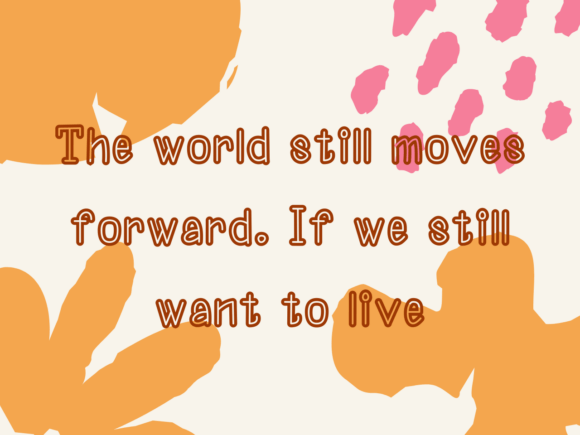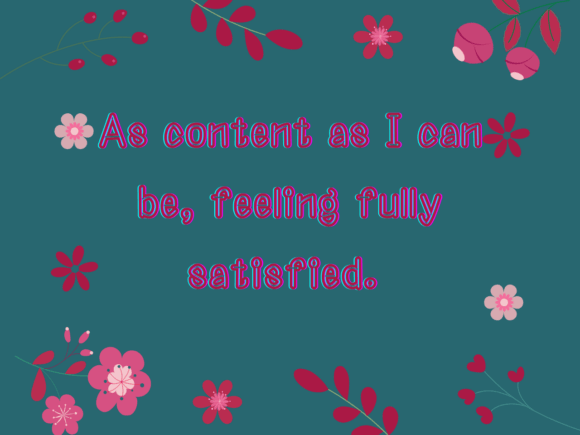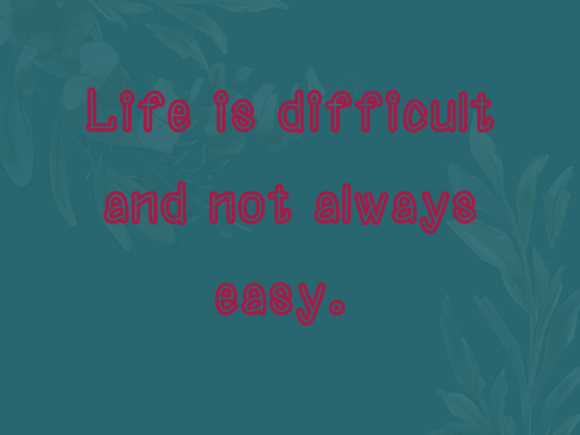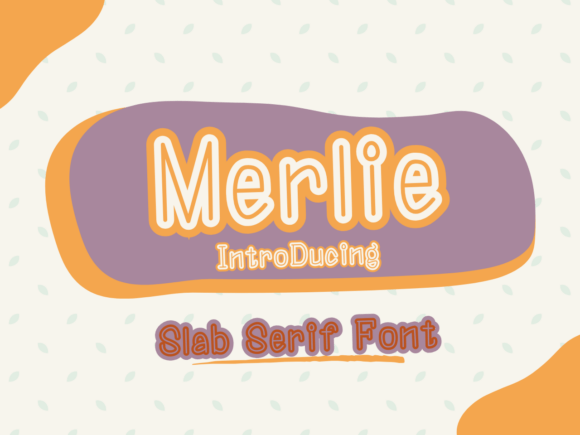
Introduction to Merlie Font
Merlie is a unique font that adds a special touch to your designs.
It stands out with its own distinct style, making it perfect for enhancing letters, greeting cards, wedding invitations, quotes, Goodnotes, planners, handwritten notes, logos, and more This font will give your work a fresh, distinctive look, making it stand out with its creative flair.
Key Features of Merlie Font
Why Choose Merlie Font?
Merlie Font offers exceptional quality and versatility, making it a valuable addition to your design toolkit. Whether you’re creating for personal projects or commercial use, Merlie Font delivers professional results.